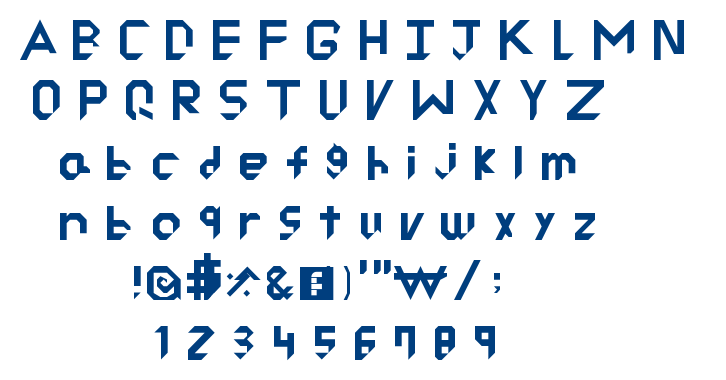
Tiny Small Medium Large Ryu Cutted font yuhrt5232 Website ryu_cutted.ttf Download 1512 downloads Free for personal use Category: Techno » Various Cut for right down corner. It’s my first font. Thank you for downloads And Comments make me smile 🙂 Character Map specimen sheet